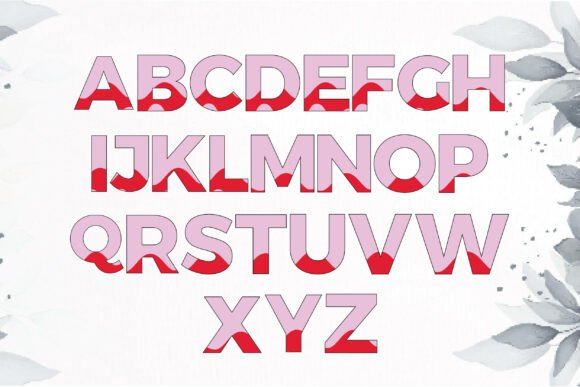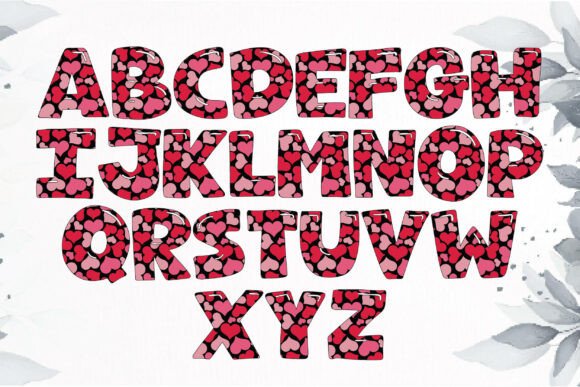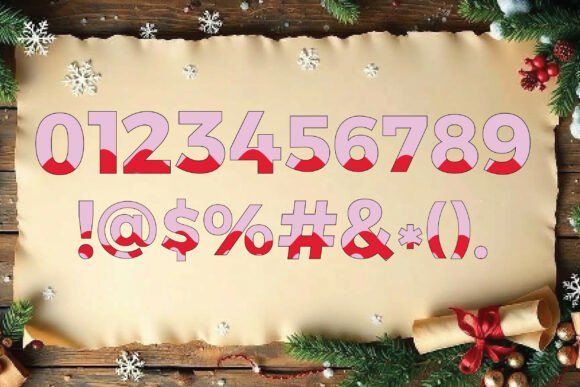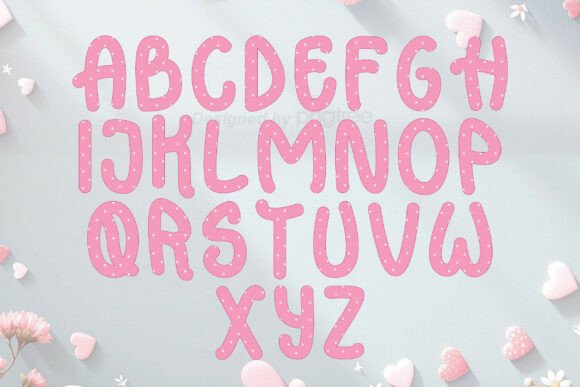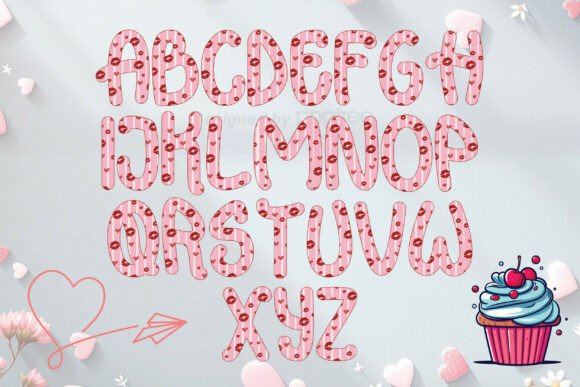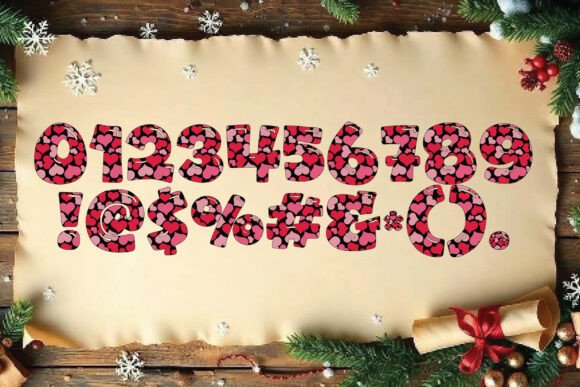
Berry Love Font: The Ultimate Valentine’s Day Design Bundle
Are you looking for a way to add a touch of sweetness and romance to your designs? Look no further than the Berry Love Valentine Alphabets Pack! This adorable bundle combines playful berry-style lettering with timeless Valentine’s Day themes, giving you the perfect mix of cute and romantic design styles.
What’s Included in the Bundle?
The Berry Love Valentine Alphabets Pack includes four unique fonts, each with its own special charm:
- Berry Dot Font – A fun and playful dotted-style lettering that’s perfect for adding a whimsical touch to your designs.
- Berry Kiss Font – A cute berry-inspired romantic lettering that’s sure to make your designs stand out.
- Valentine Font – A classic love-themed alphabet that’s perfect for creating traditional Valentine’s Day designs.
- Valentine Heart Font – A sweet letters decorated with heart details that will add a touch of romance to any design.
The Berry Love Valentine Alphabets Pack is perfect for a wide range of design projects, including:
- Valentine’s Day cards and love notes
- Planners and stickers
- Mugs and t-shirts
- Scrapbooking and party decorations
- Classroom crafts and social media graphics
Why Choose the Berry Love Font?
So why choose the Berry Love Valentine Alphabets Pack for your design needs? Here are just a few reasons:
- Unique and adorable designs – The Berry Love Font is unlike anything you’ve ever seen before! The playful berry-style lettering and timeless Valentine’s Day themes make it the perfect addition to any design.
- Easy to use – The fonts in this bundle are easy to use and can be imported into your favorite design software.
- Versatile – The Berry Love Valentine Alphabets Pack can be used for a wide range of design projects, from Valentine’s Day cards to social media graphics.
- High-quality – The fonts in this bundle are high-quality and will make your designs stand out.
Tips and Inspiration for Using the Berry Love Font
Here are a few tips and inspiration ideas for using the Berry Love Valentine Alphabets Pack:
- Create a custom Valentine’s Day card – Use the Berry Love Font to create a one-of-a-kind Valentine’s Day card for your loved one.
- Add a touch of romance to your social media graphics – Use the Valentine Heart Font to add a touch of romance to your social media graphics.
- Make a cute planner – Use the Berry Dot Font to create a cute and playful planner.
- Design a custom mug – Use the Berry Kiss Font to design a custom mug for your favorite coffee lover.